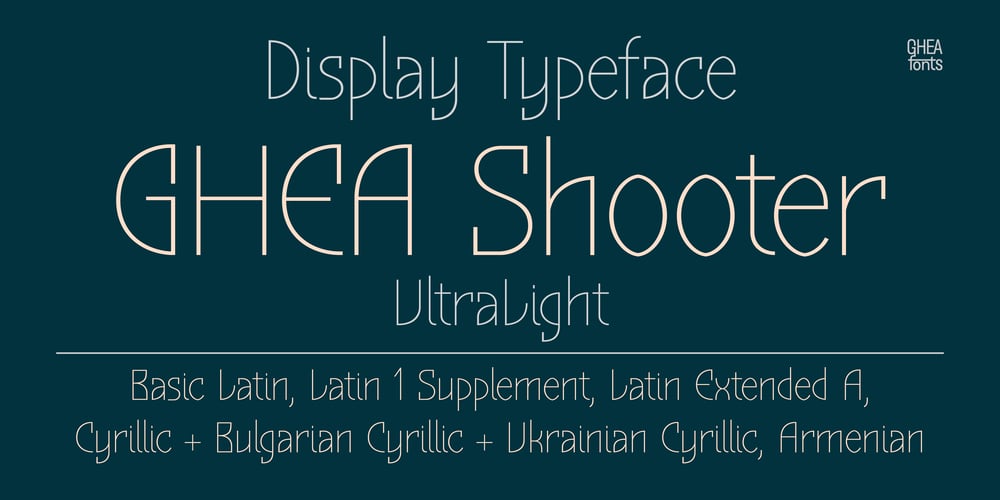
GHEA Shooter Font Family was designed by Edik Ghabuzyan and published by Edik Ghabuzyan. GHEA Shooter contains 1 styles and family package options. This UltraLight weight original Display font GHEA Shooter includes Basic Latin, Latin 1 Supplement, Latin extended A, Cyrillic + Bulgarian Cyrillic + Ukrainian Cyrillic, Armenian. May be used in titles, posters, labels, etc. The font looks very nice in large sizes.